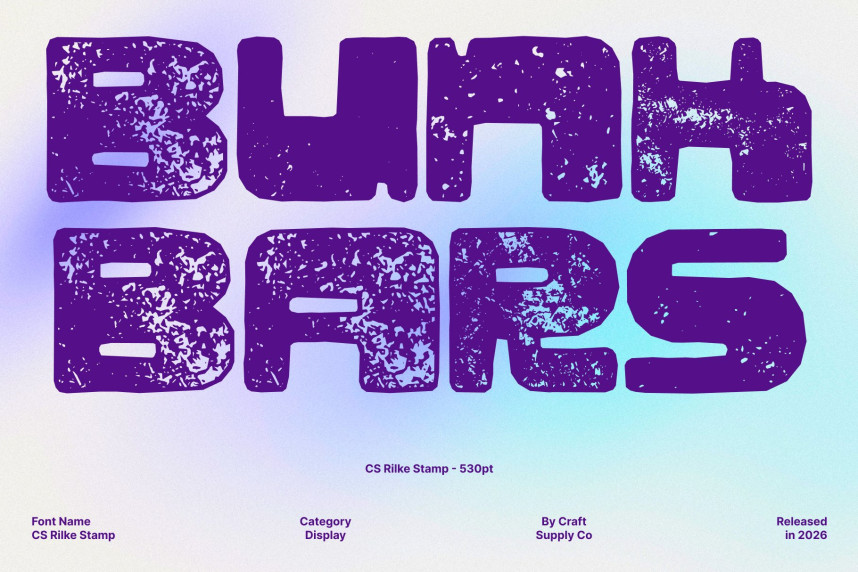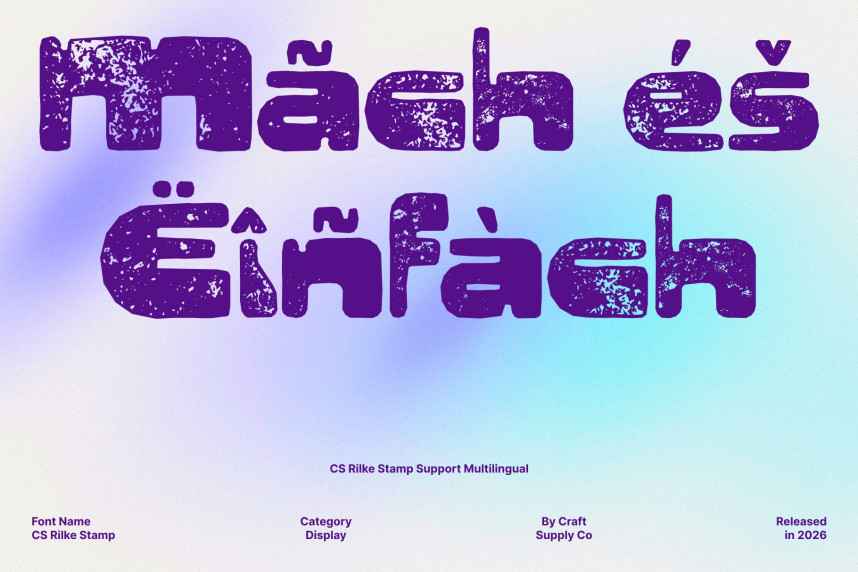
CS Rilke Stamp Font
CS Rilke Stamp Font – Futuristic Display Font: Where Y2K Vision Meets Vintage Stamp Texture
Y2K-Inspired Design with Bold Digital Energy
This is a futuristic display font infused with a Y2K-inspired aesthetic, bringing a bold and stylish edge to modern visual design. Its sleek, forward-looking letterforms capture the optimism and experimental spirit of early digital culture, creating typography that feels dynamic, expressive, and unmistakably futuristic.